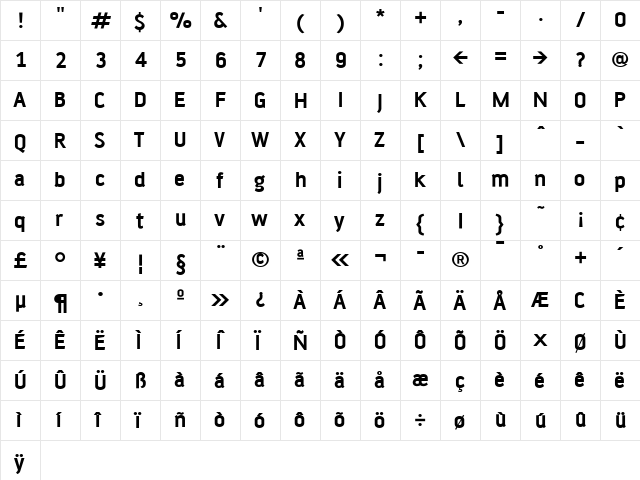
AFBattersea Bold
Design Context for AFBattersea Typeface
AFBattersea is a composed and adaptable typeface that performs quietly and consistently across a wide range of design contexts. The heavy weight commands attention and anchors typographic hierarchies.